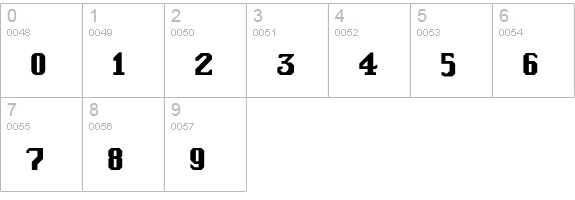
Genoa-Roman Font Details
Genoa-Roman is a sleek and elegant font that exudes sophistication and modernity. With its clean lines and timeless appeal, this typeface is perfect for a wide range of design projects, from branding to editorial work. The Genoa-Roman font strikes the perfect balance between classic and contemporary, making it a versatile choice for designers looking to make a statement. What makes Genoa-Roman even more appealing is that it is available for free download at FontsMarket.com. This means that you can easily access this high-quality font without any cost, making it a valuable addition to your font library. Whether you're creating a logo, designing a website, or working on a print project, Genoa-Roman is sure to elevate your work with its distinctive charm and professional aesthetic. Download Genoa-Roman today and add a touch of sophistication to your designs.